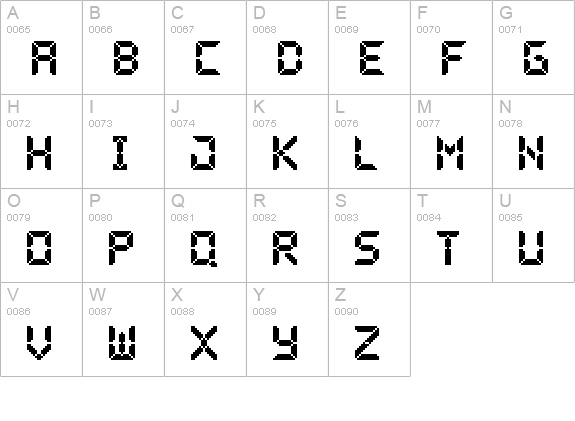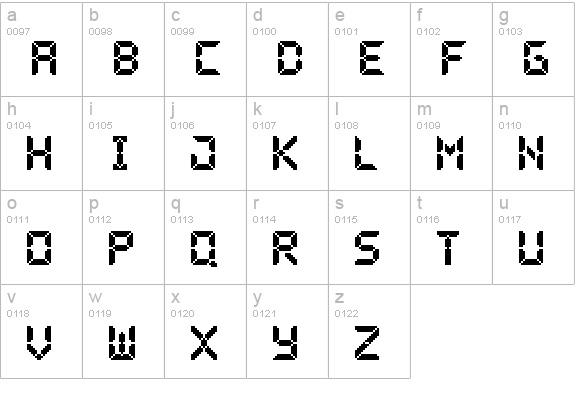
Pixel LCD-7 Font Details
The Pixel LCD-7 font is a visually striking typeface that captures the essence of retro gaming and futuristic technology. Reminiscent of the pixelated graphics found in classic video games, this font is perfect for adding a touch of nostalgia to your designs. With its sharp edges and precise grid-like structure, Pixel LCD-7 is both bold and captivating. This font is not only visually appealing but also highly versatile. It can be used for various purposes such as headlines, titles, logos, and even body text. Its legibility and unique aesthetic make it stand out in any project, adding a touch of personality and creativity. What makes Pixel LCD-7 even more appealing is that it is freely available to download at FontsMarket.com. This means that you can easily access and use this font without any cost. Whether you are a professional designer or just someone who loves experimenting with typography, Pixel LCD-7 provides you with a free and convenient option to enhance your designs. So why wait? Download Pixel LCD-7 font today and unleash your creativity with this captivating and versatile typeface. It's time to bring a touch of retro gaming charm to your projects, all with the freedom and accessibility that FontsMarket.com offers.